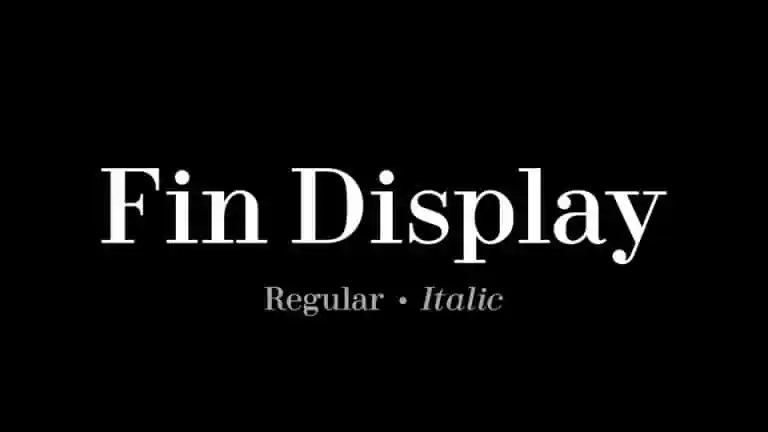
Fin Display Serif Font
Fin Display Serif Font is created with well balanced contrast between thick stems and thin crossbar. This font is a high contrast serif font family in Regular and Italic styles. It’s a nod to Bodoni and other typefaces from the Modern era, adjusted to be more readable on modern devices.